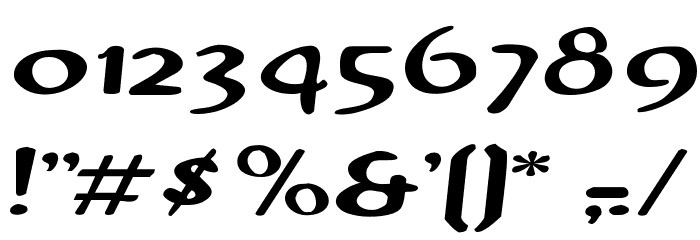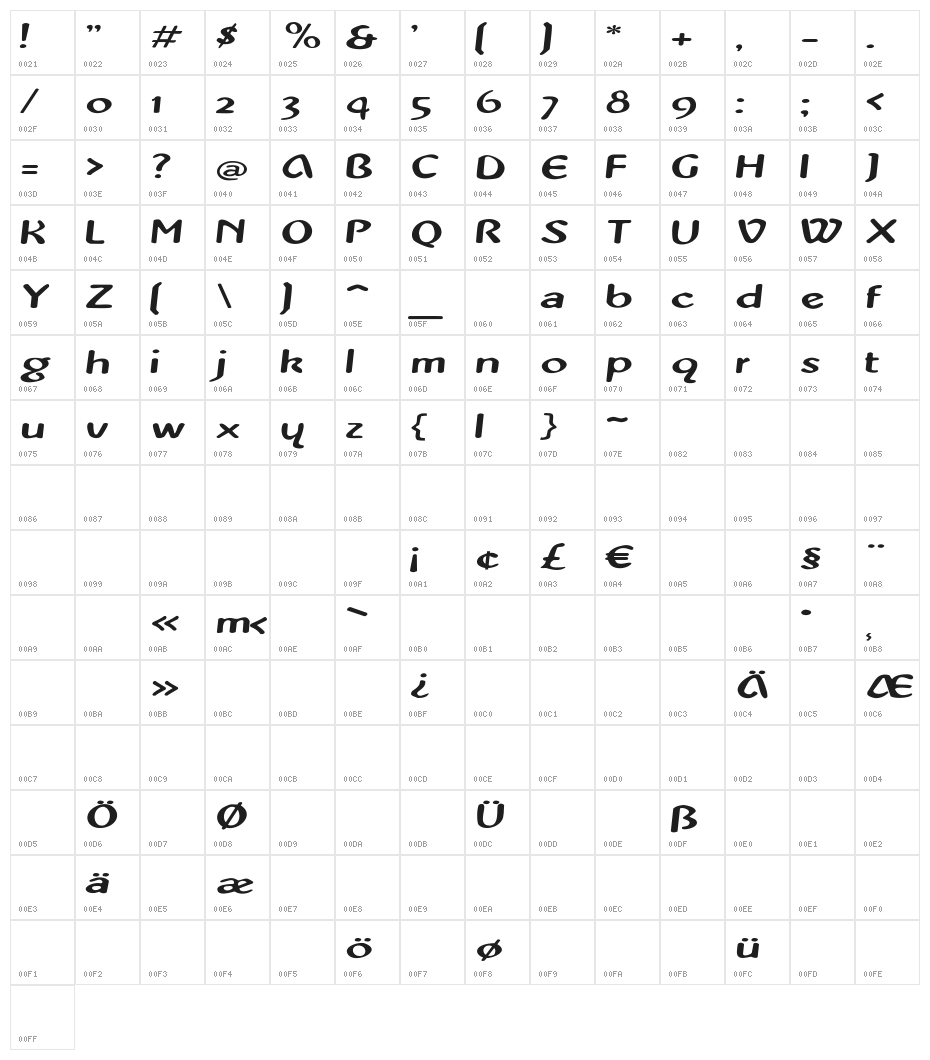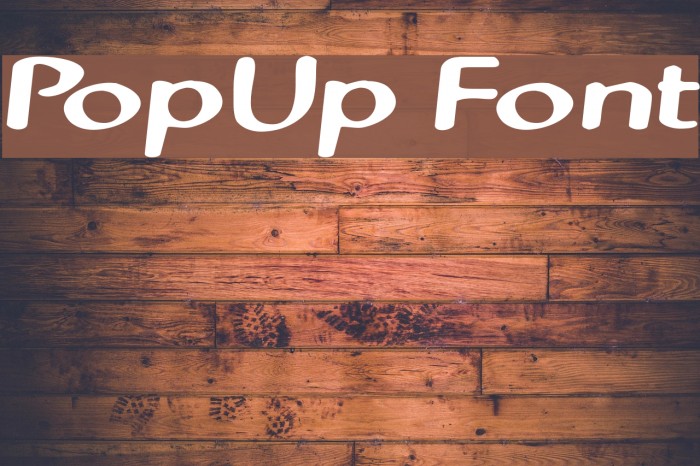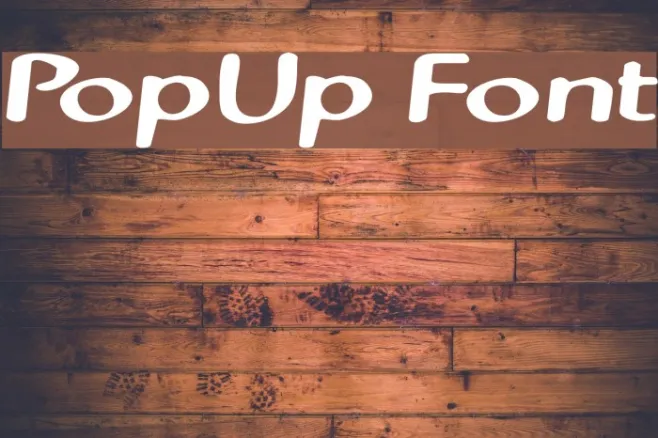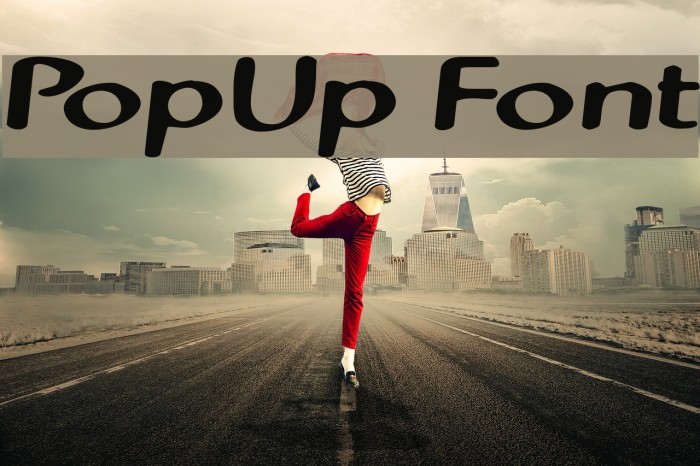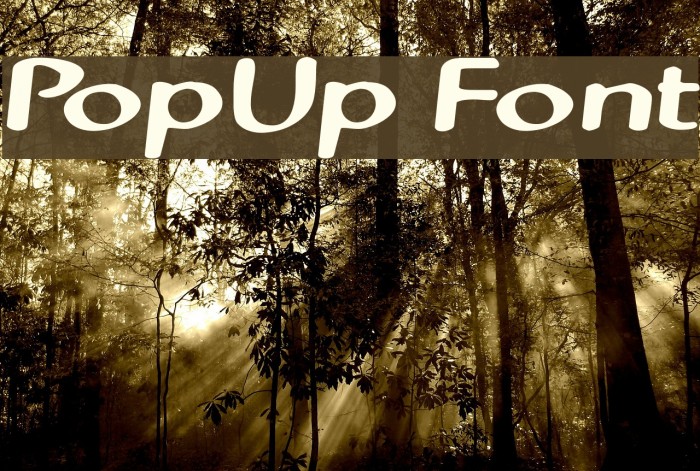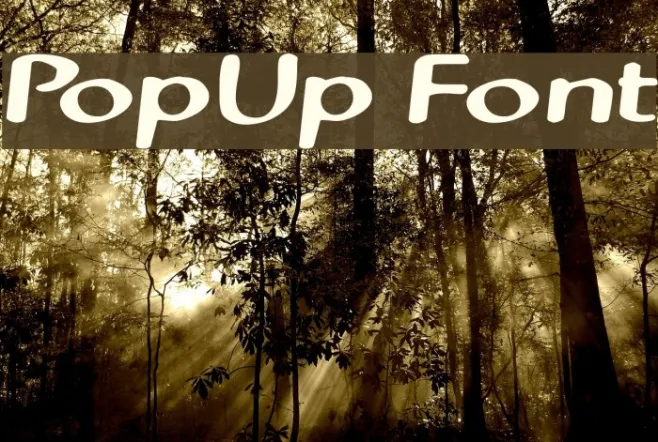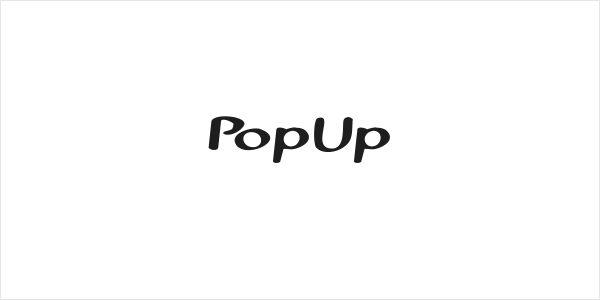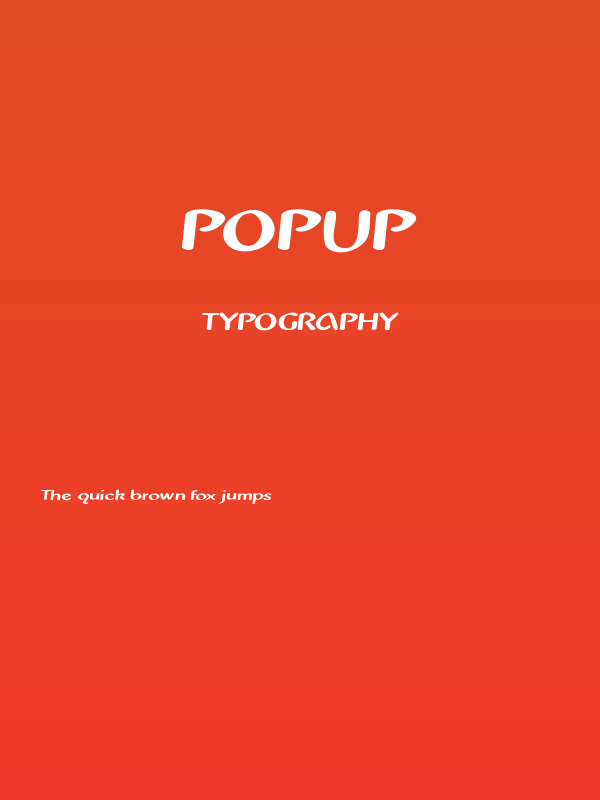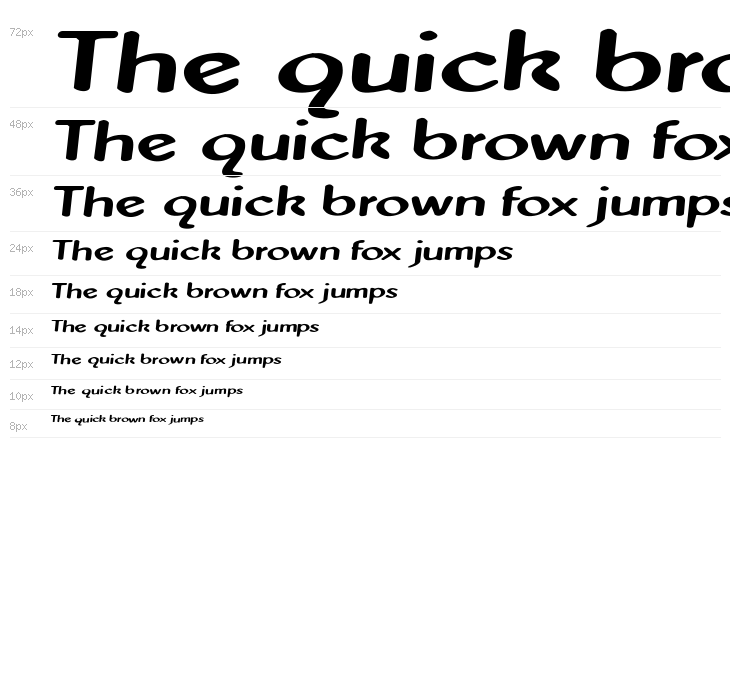
PopUp Font
PopUp Description
This font features a playful and dynamic style with a handwritten appearance. The characters are bold and rounded, giving a sense of friendliness and approachability. The strokes are thick, with a medium contrast between the thick and thin parts of the letters. The overall design is slightly slanted, adding to its casual and informal vibe. The font includes a full set of uppercase and lowercase letters, numbers, and a variety of special characters, making it versatile for different uses. Its unique style makes it stand out, perfect for projects that require a touch of personality and creativity.
| Proposed Projects | Ideal for children's books, playful branding, casual invitations, and creative posters. |